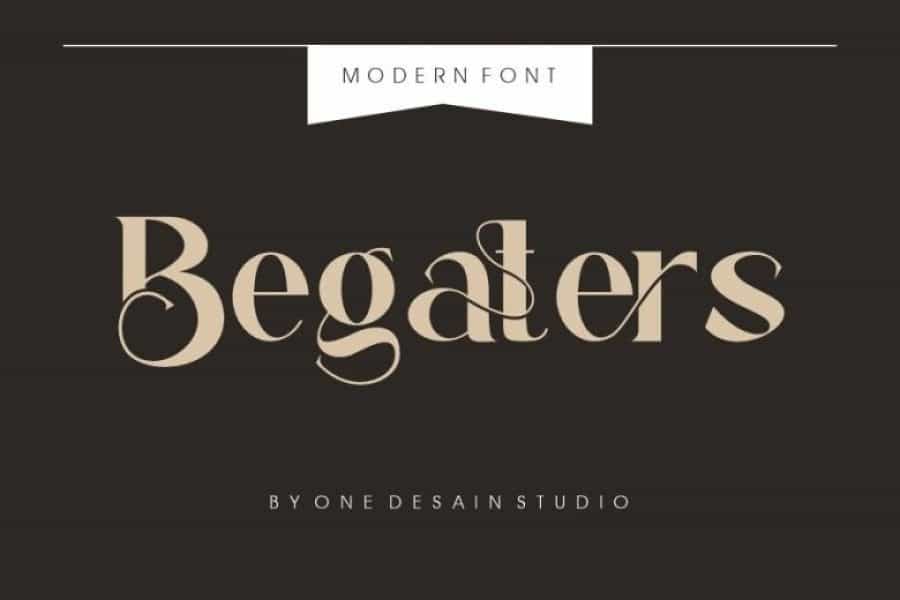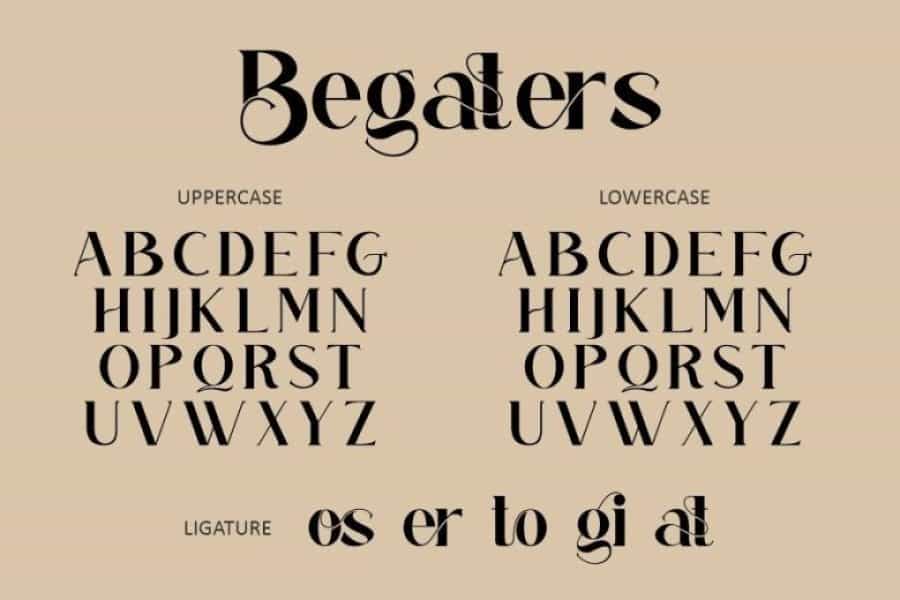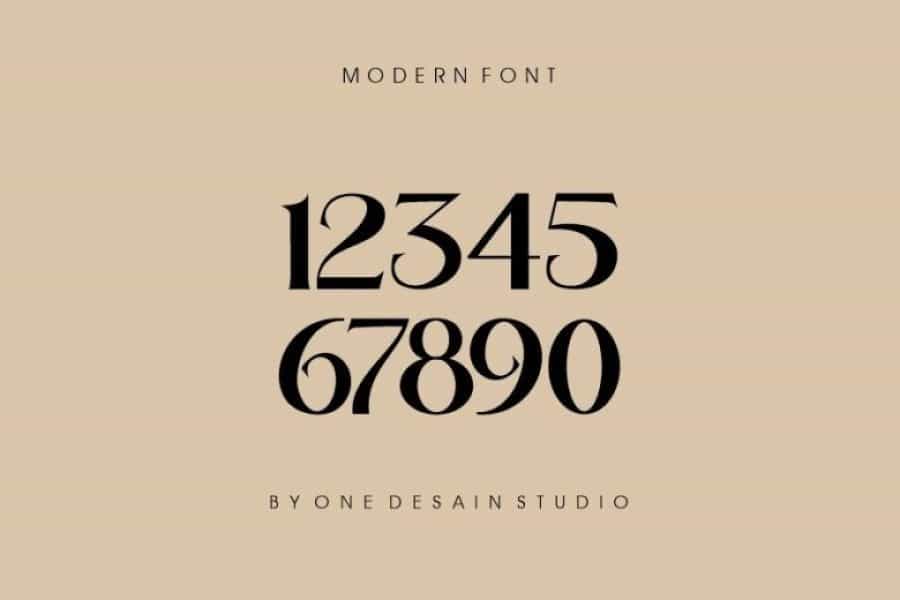
Discover Begaters Font, part of the Serif collection—a versatile and unique font perfect for adding a personal touch to your projects. Download it for free and enjoy crafting designs with style, from invitations to social media posts. This font is available exclusively for personal use, giving you the freedom to create without limits. Unlock your creativity with Begaters Font today!
Begaters is a stylish and modern serif font that exudes modern chic. Perfect for logos, branding as well as social media applications (print materials such as T-shirts), stickers or SVG files! Additionally, Begaters stands out as it can easily fit in with various styles; whether boho chic, wild style or elegant editorial settings!